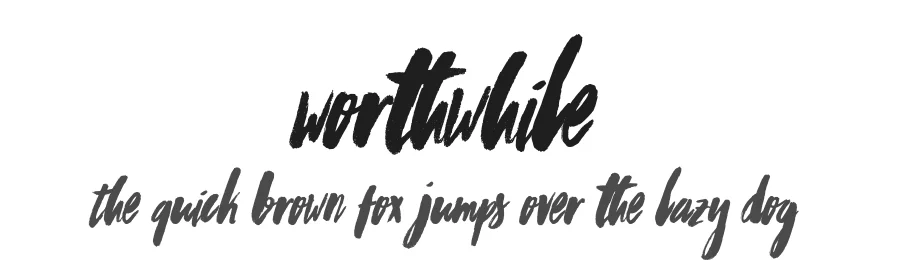
About Calisatt Font
Introducing Calisatt. A fast stroke brush and ink SVG fonts. Comes up in both version, SVG and regular. Packed up with a bunch of ligatures in both version makes this font looks so natural and feels like youΒre writing by yourself. Perfectly fit for a title or display, branding, moodboard concept, beauty fashion stuff, etc. Release your youth spirit with this time-saver font.